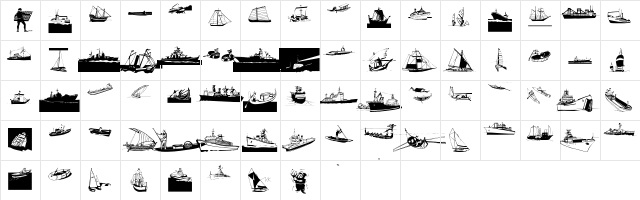
I Am Sailing Regular
Design Context for I Am Sailing Typeface
I Am Sailing is a composed and adaptable typeface that performs quietly and consistently across a wide range of design contexts.